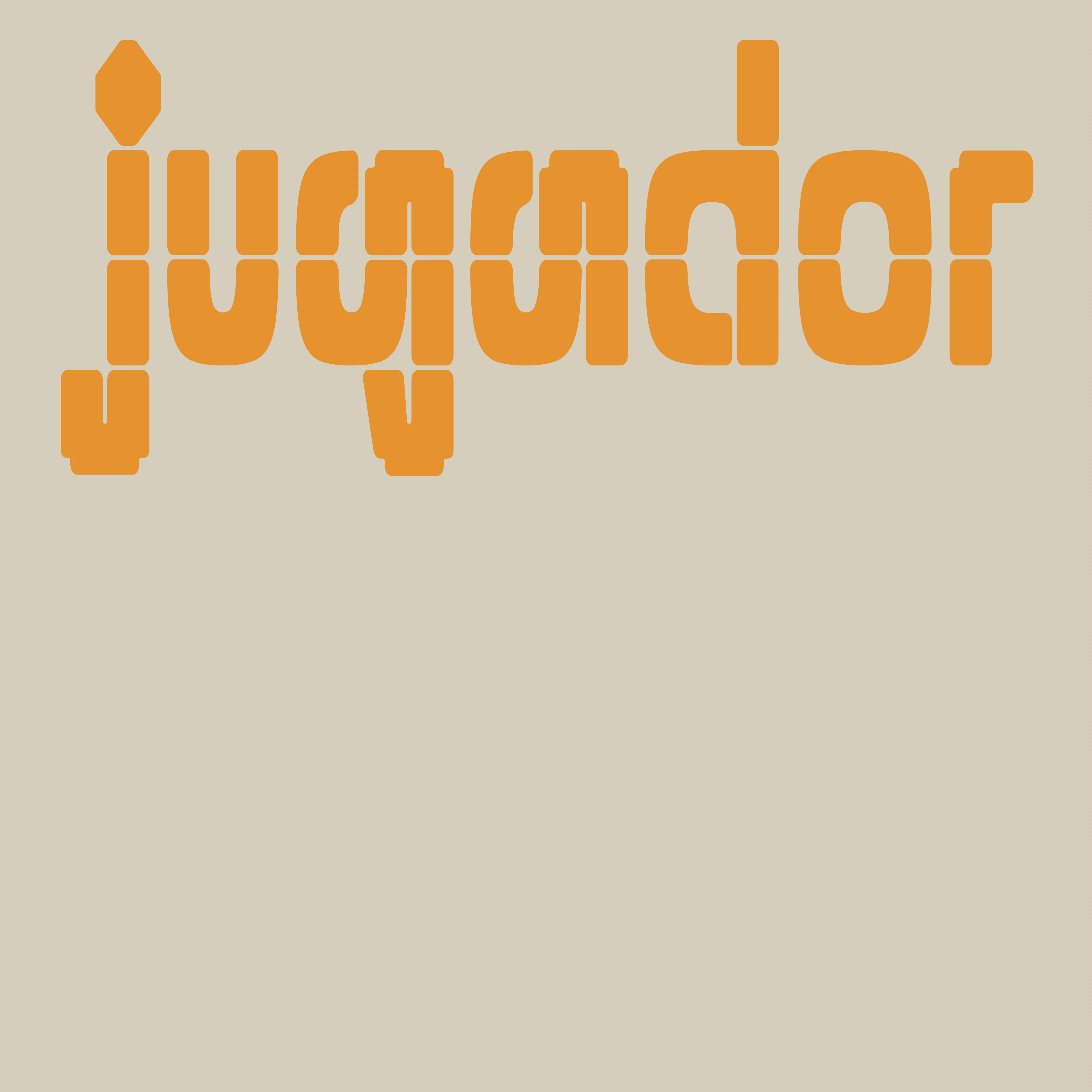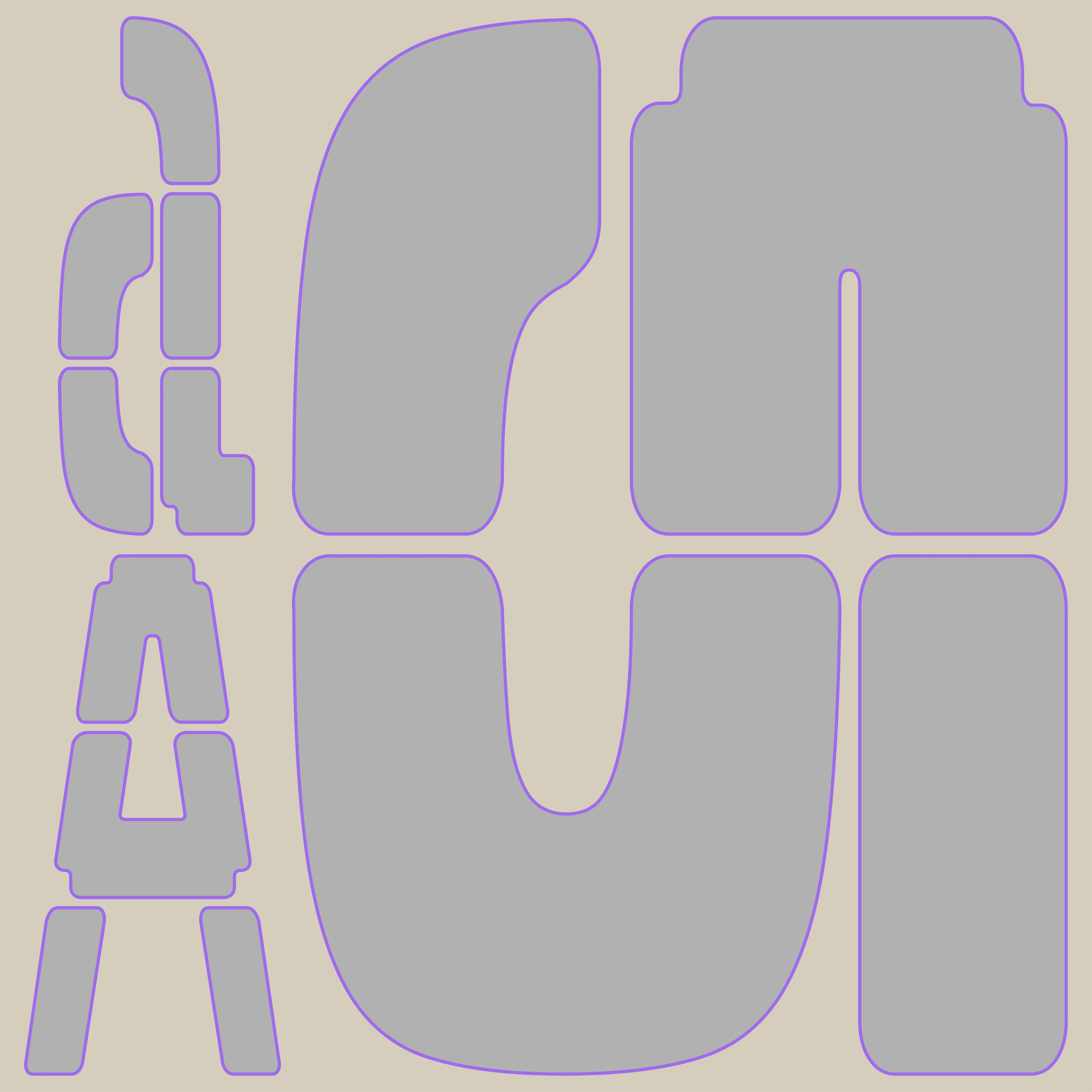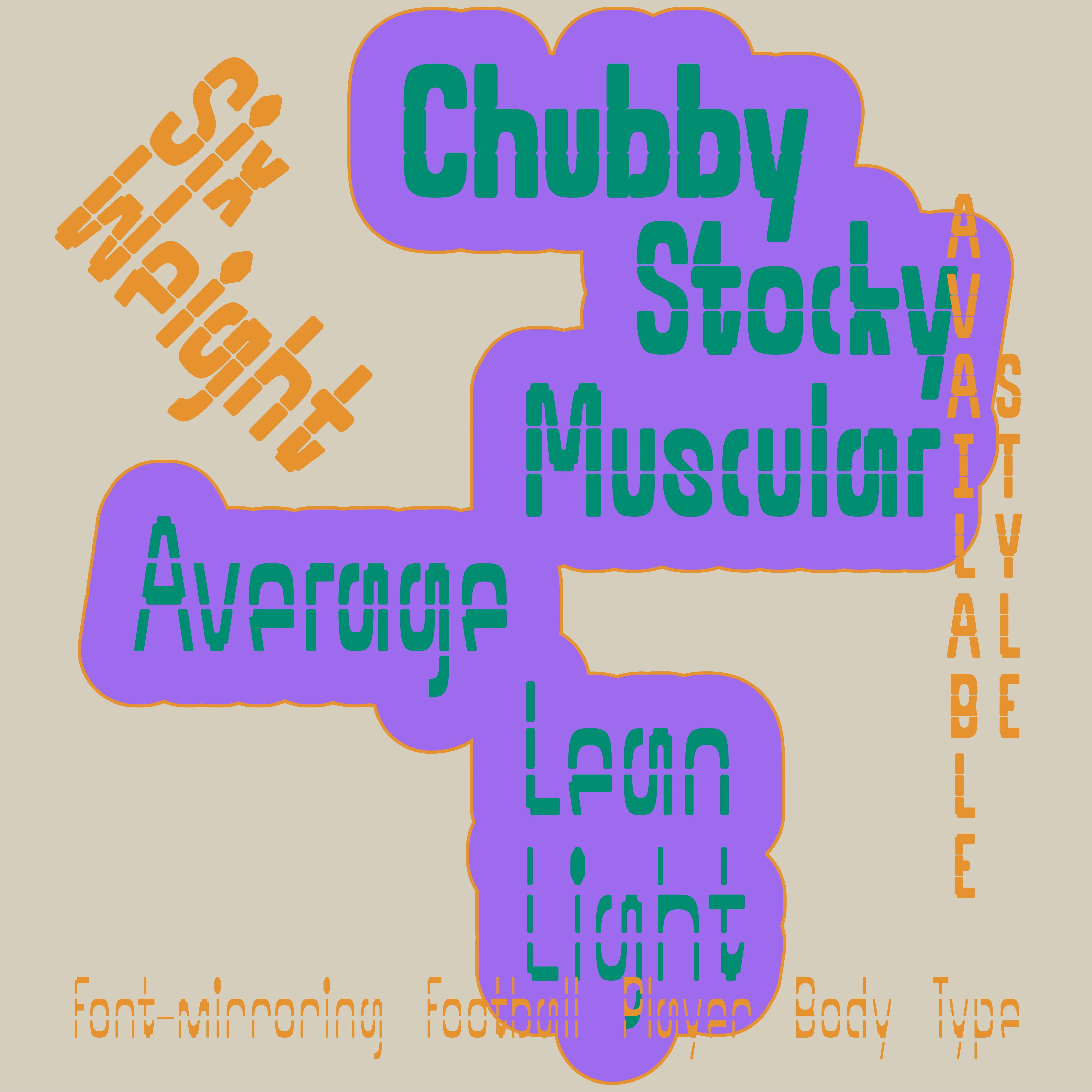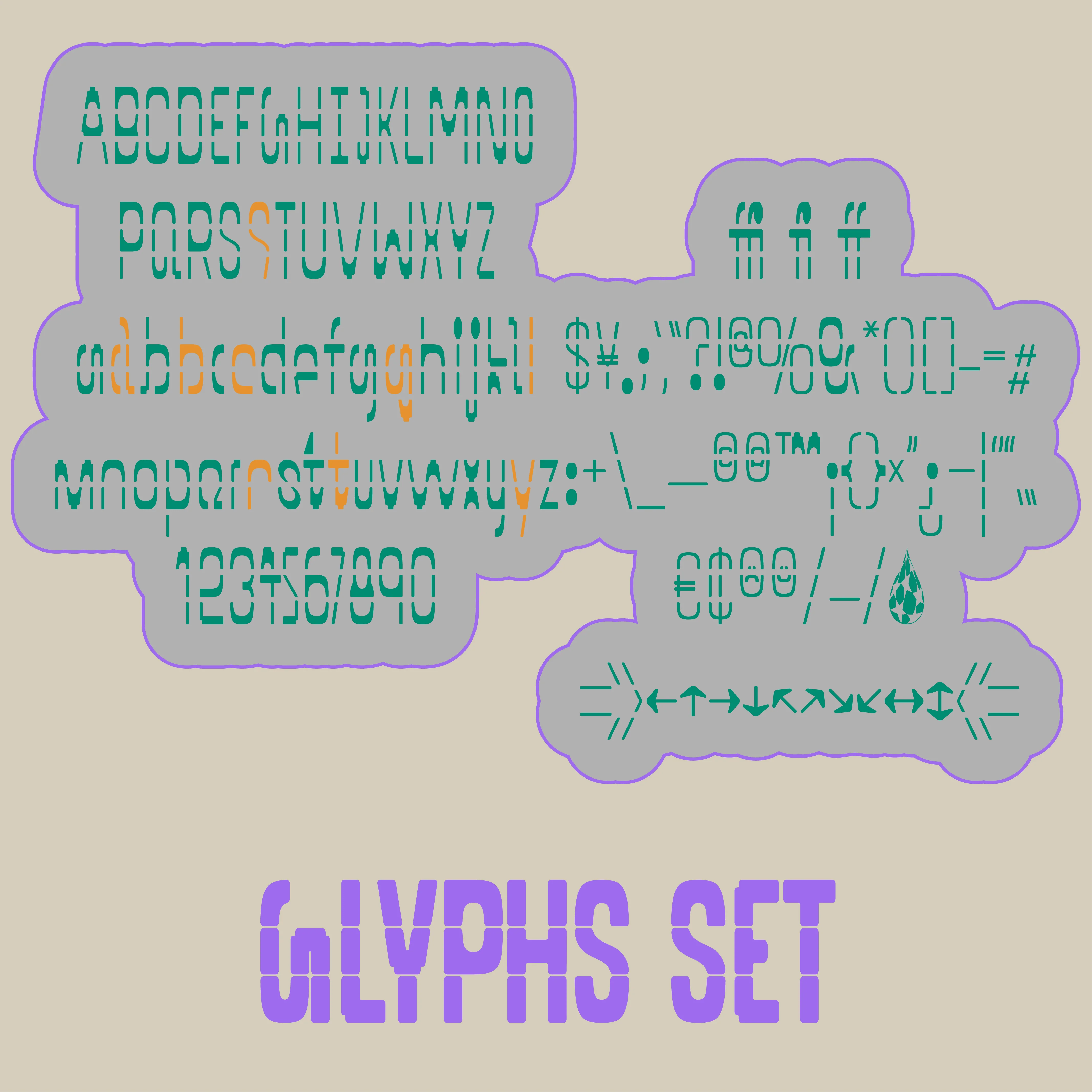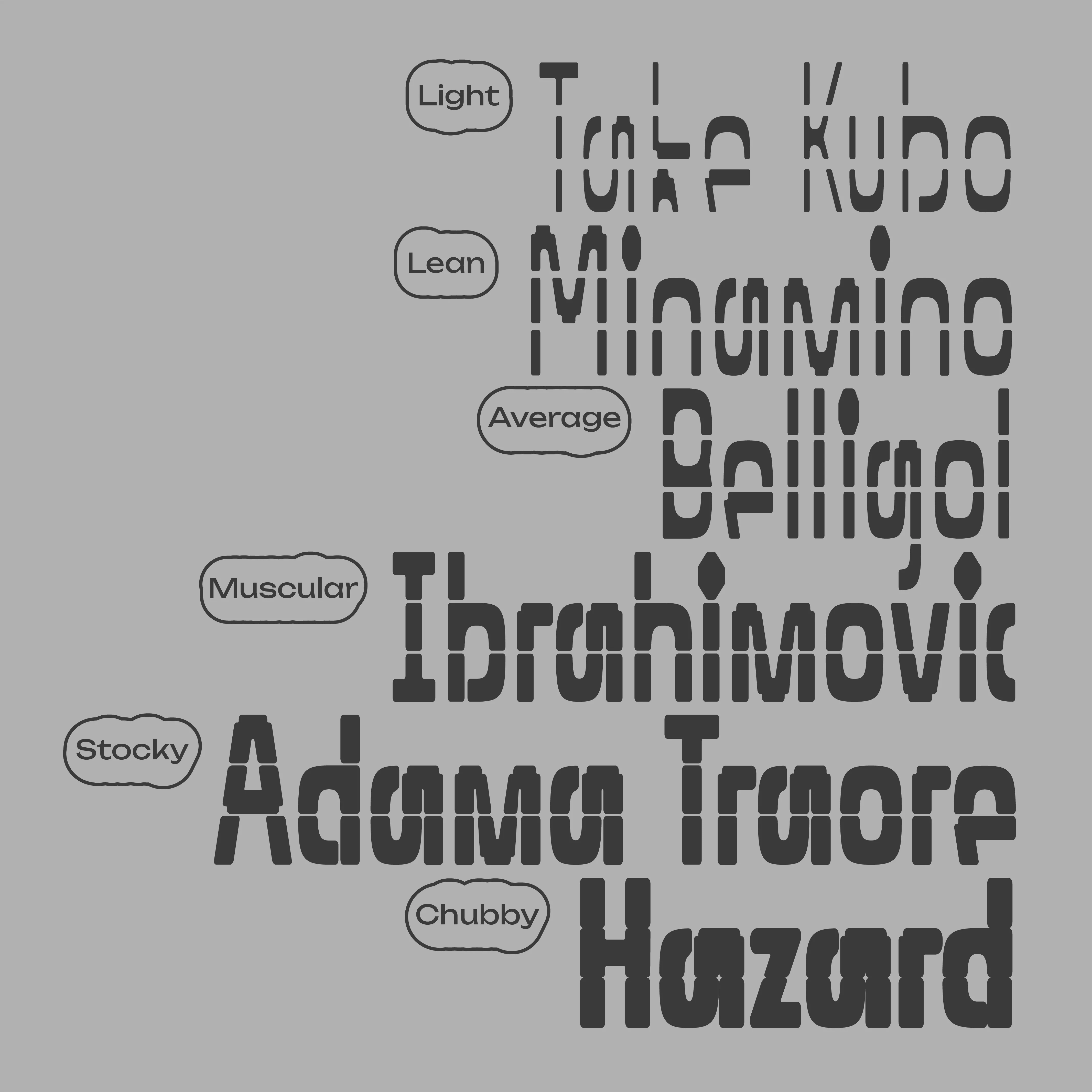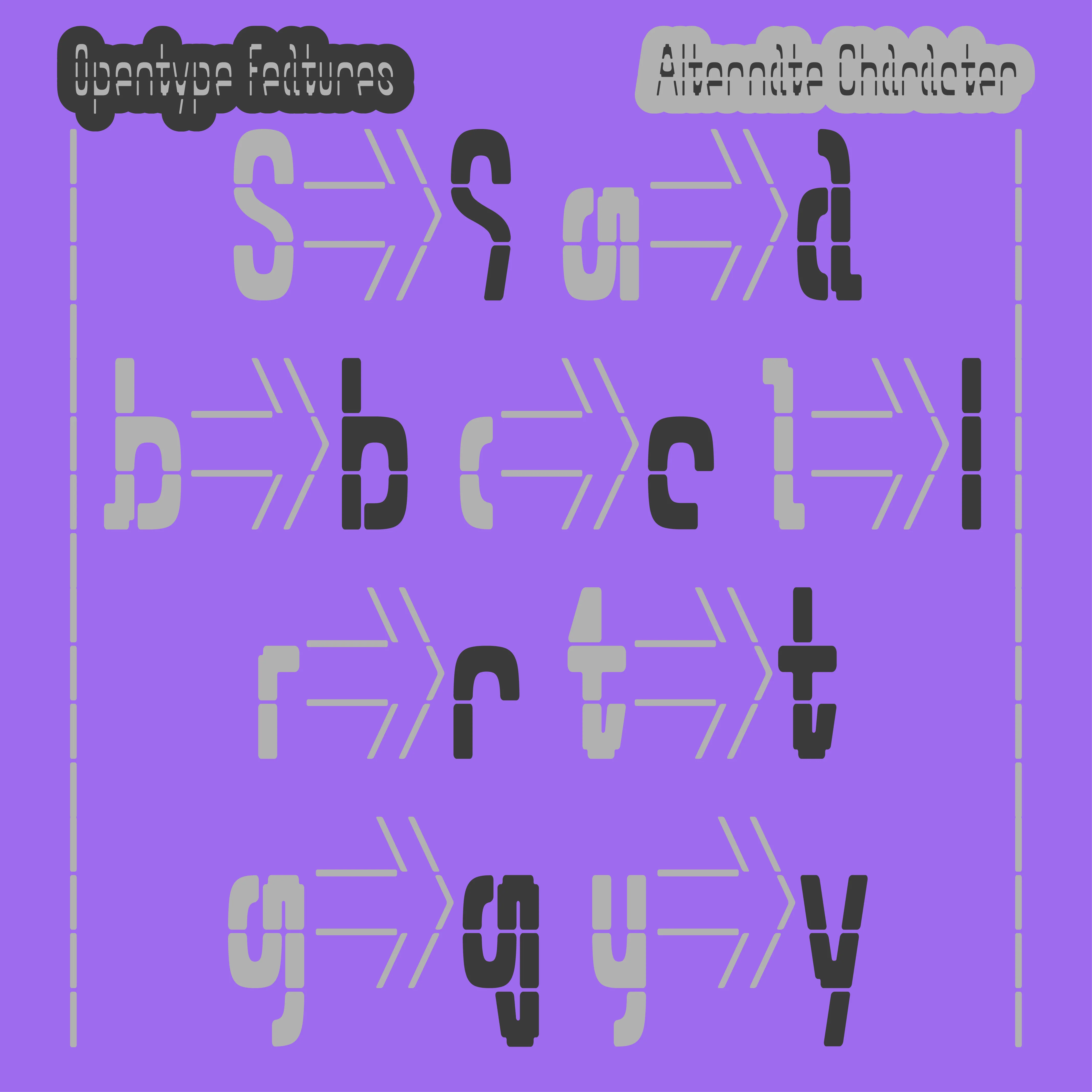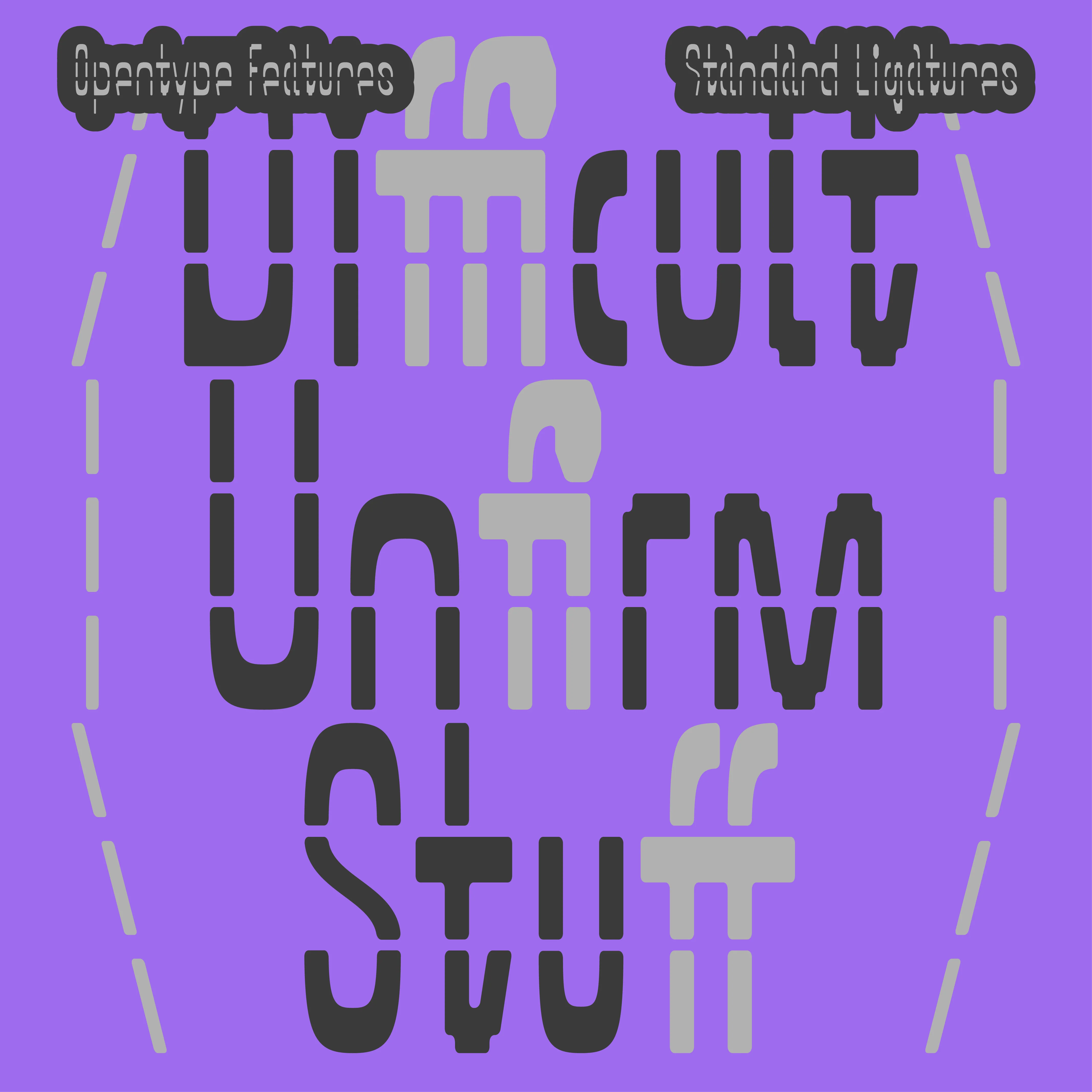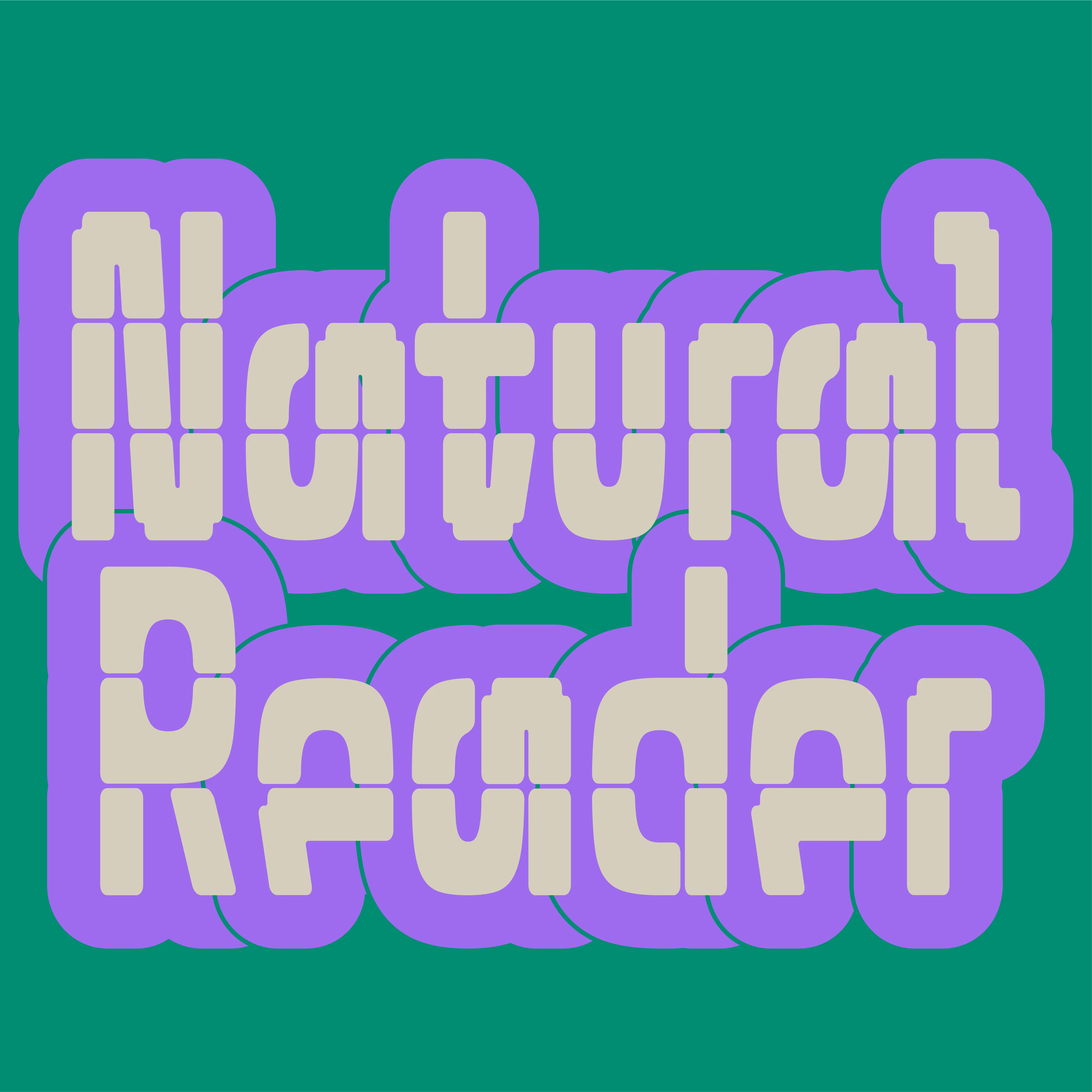
Jugador
Jugador is a modular display font inspired by the distinctive body types of professional football players. This font comes with 6 font-weight values.
Jugador
Jugador is a modular display font inspired by the distinctive body types of professional football players. This font comes with 6 font-weight values.